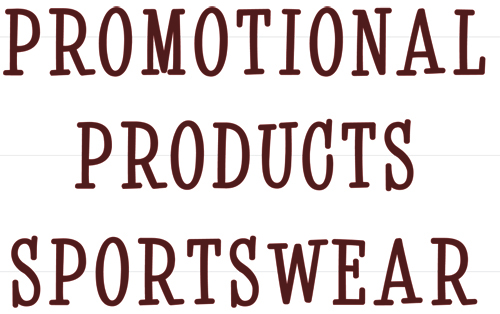
Font help?
my guess is it's a corel font. The designer made it in corel but can't remember.
any guesses? It's kinda like american typewriter but it's not.
Looks like Juice to me, I can't get the thumbnail to load right so I'm just squinting and guessing.